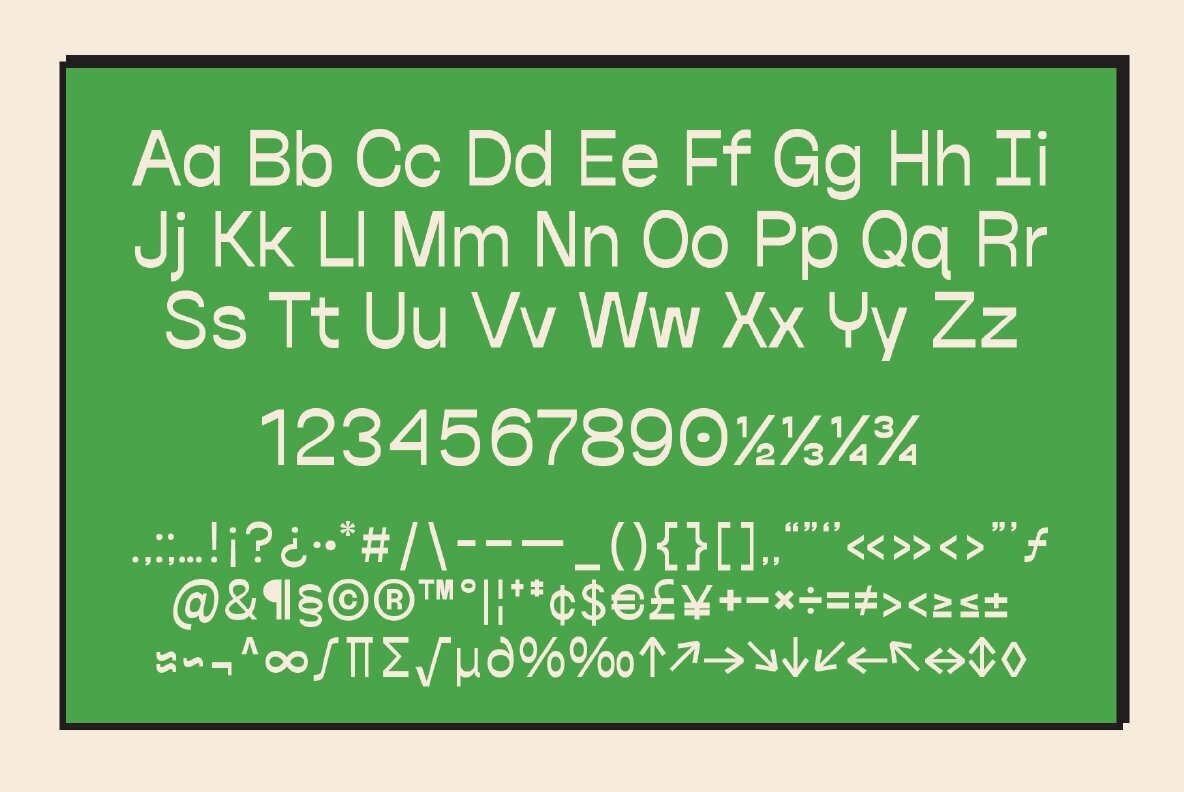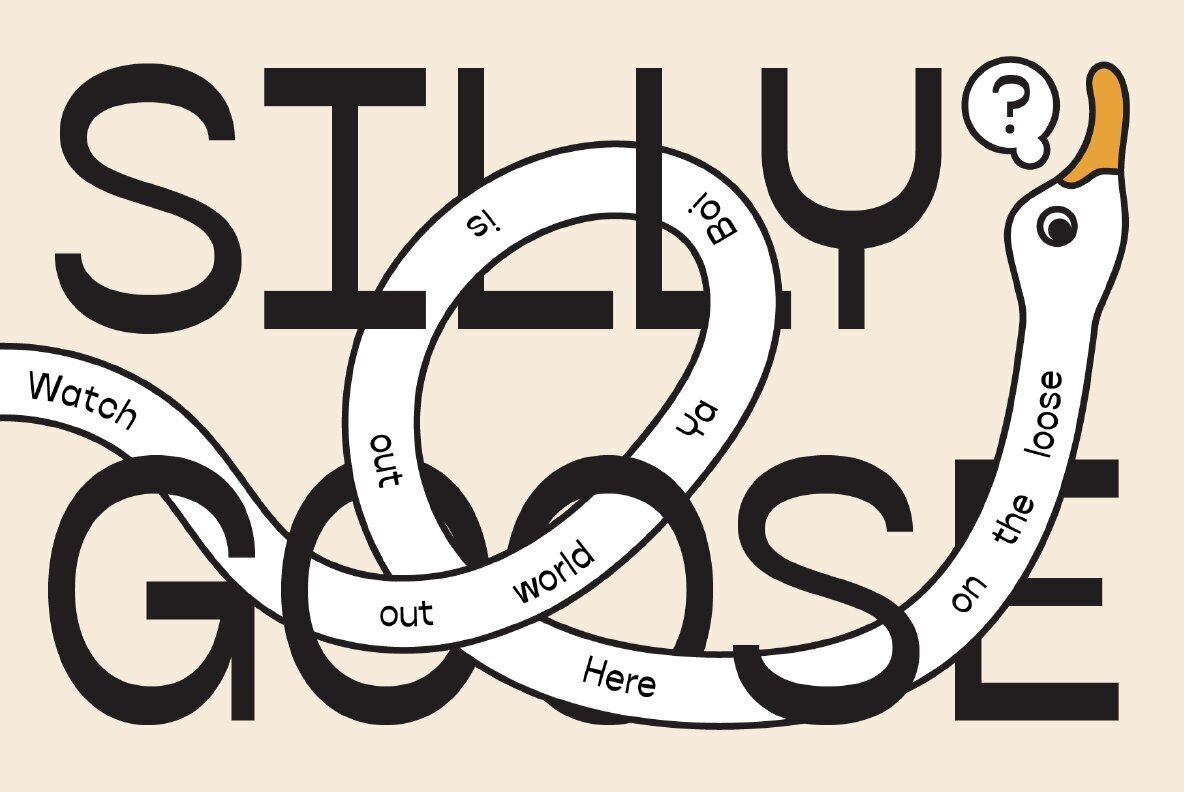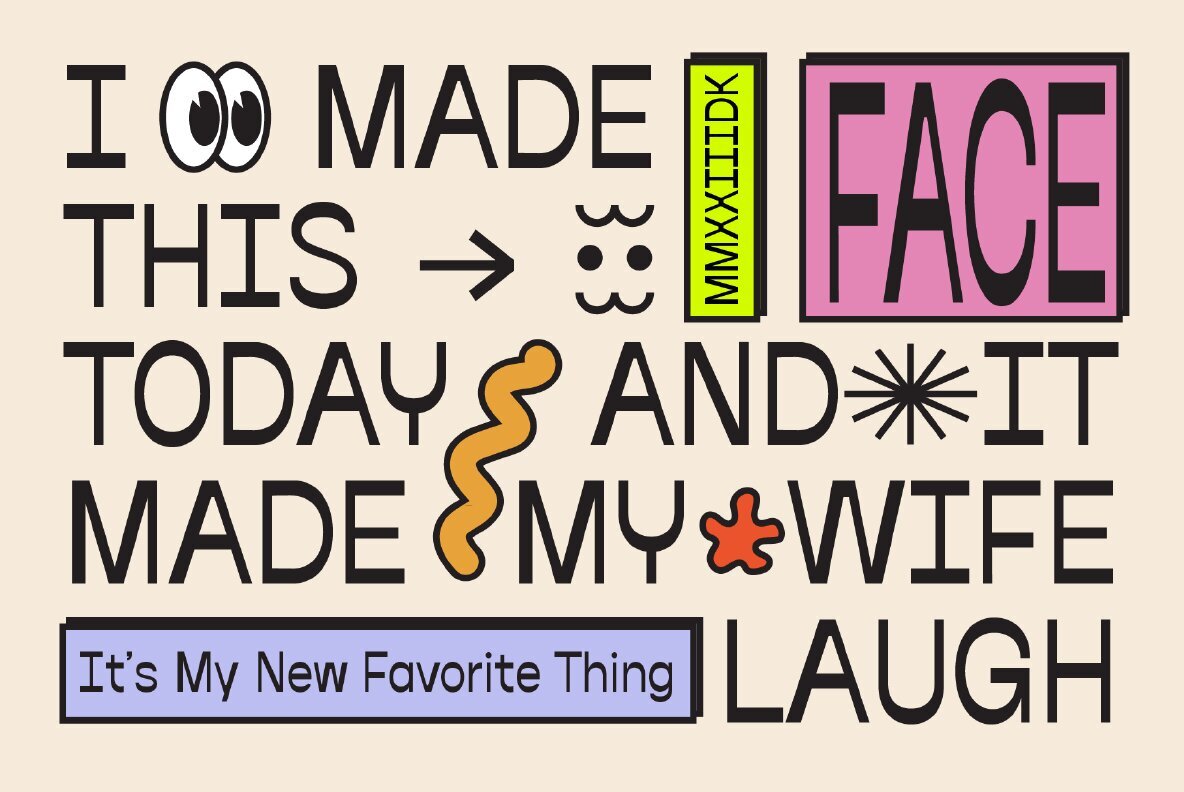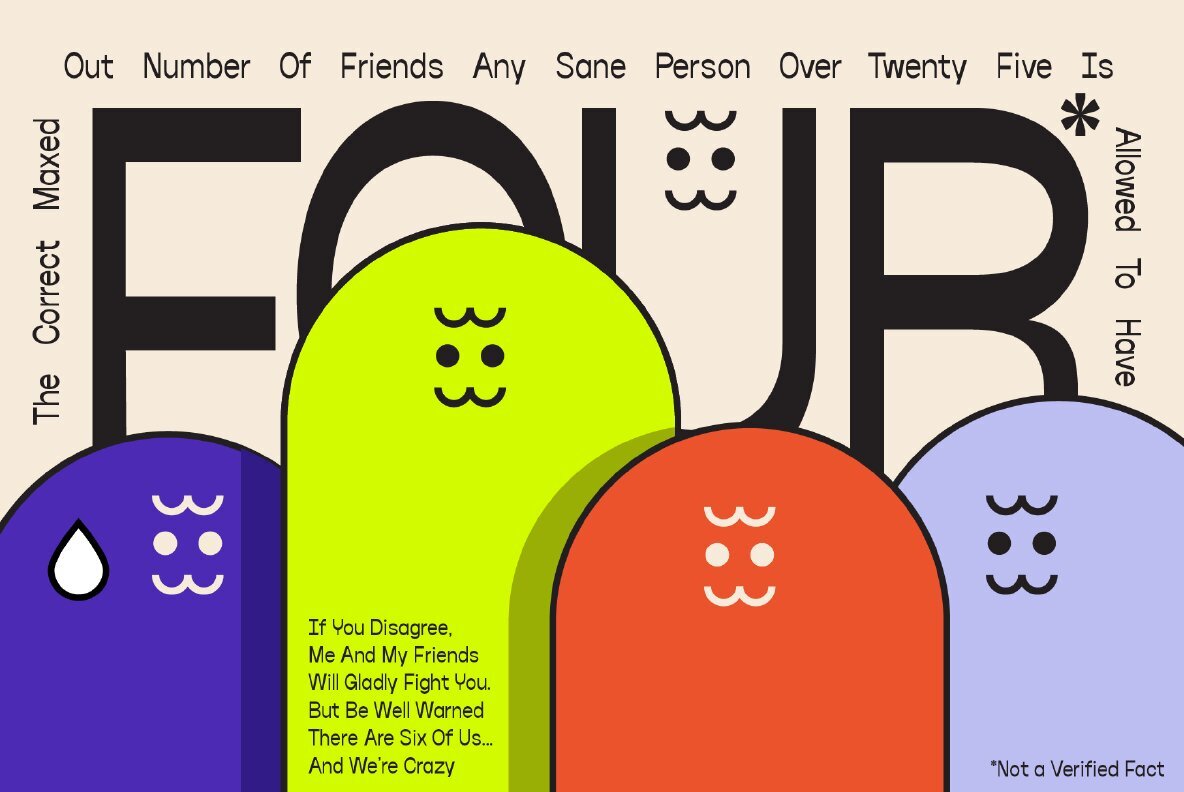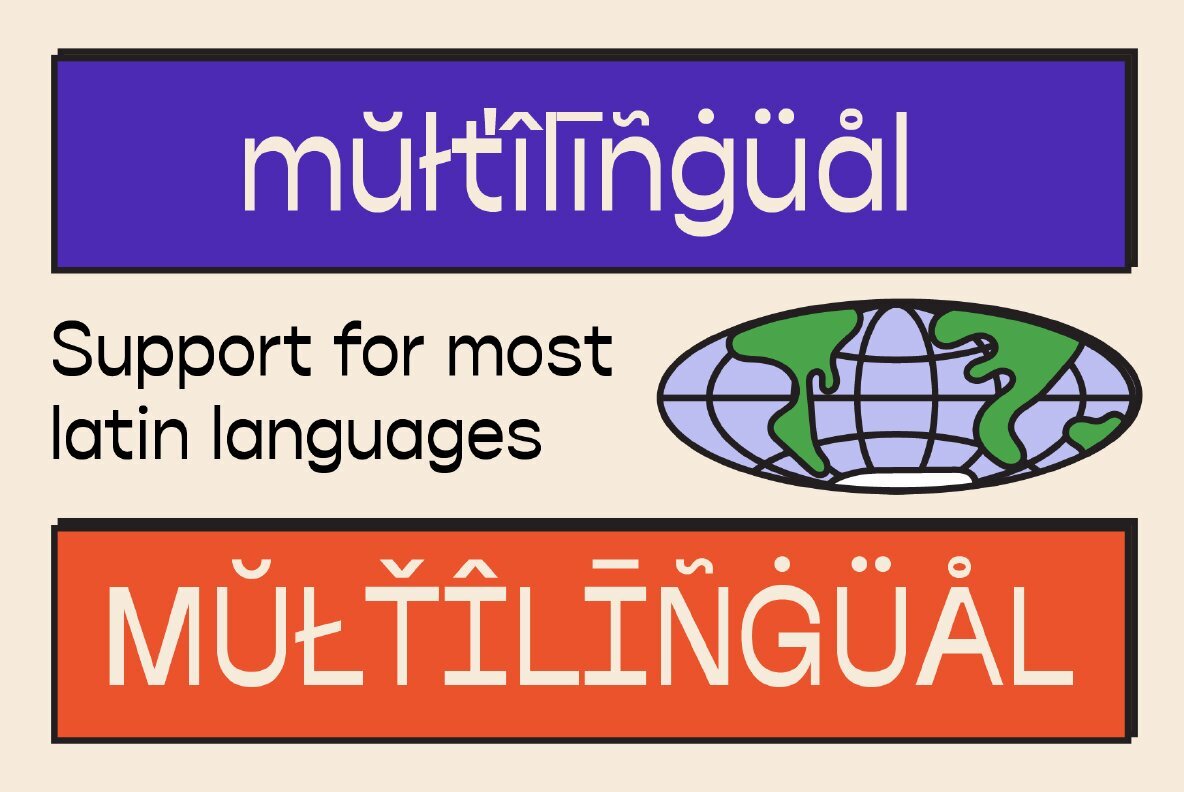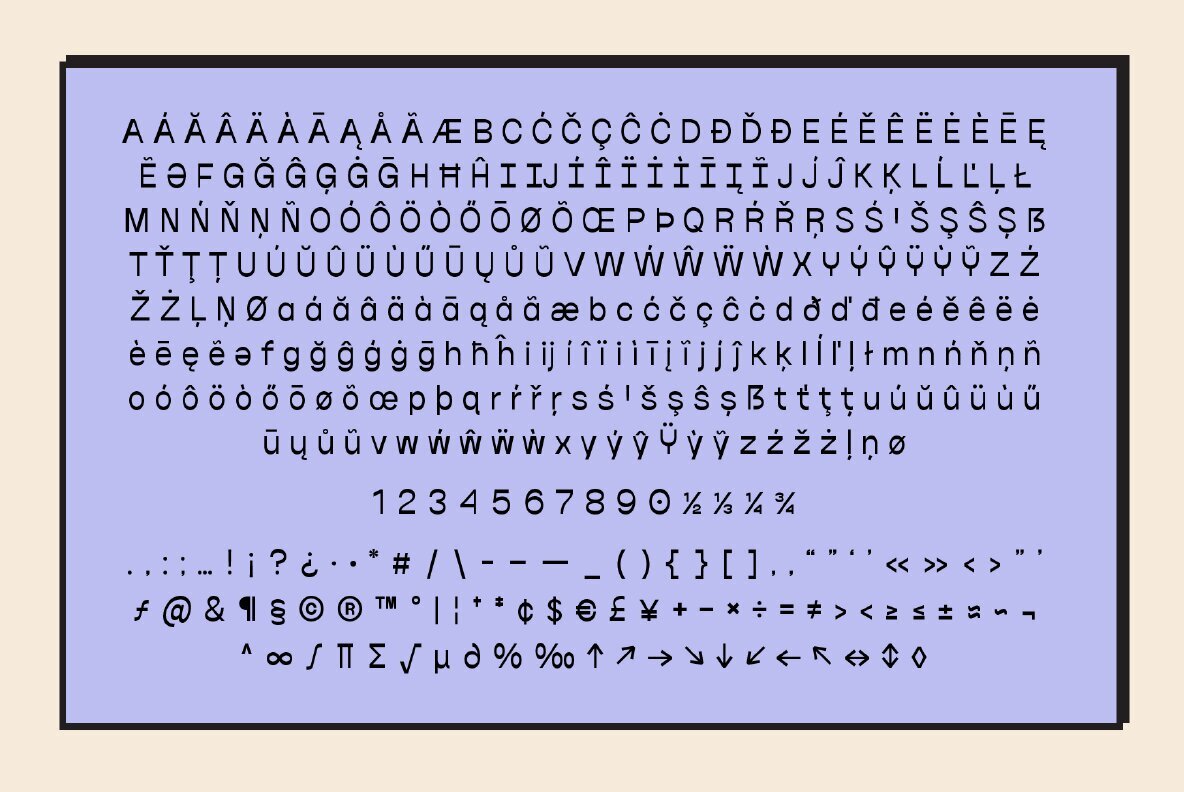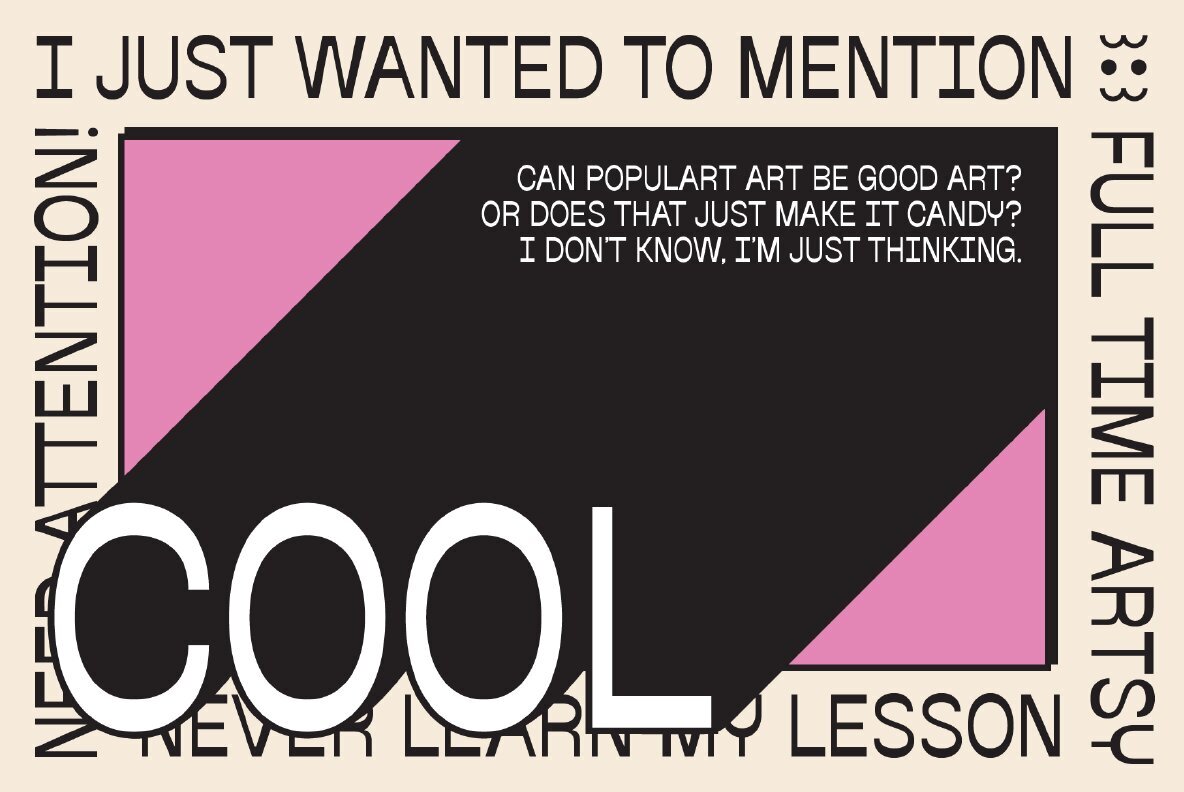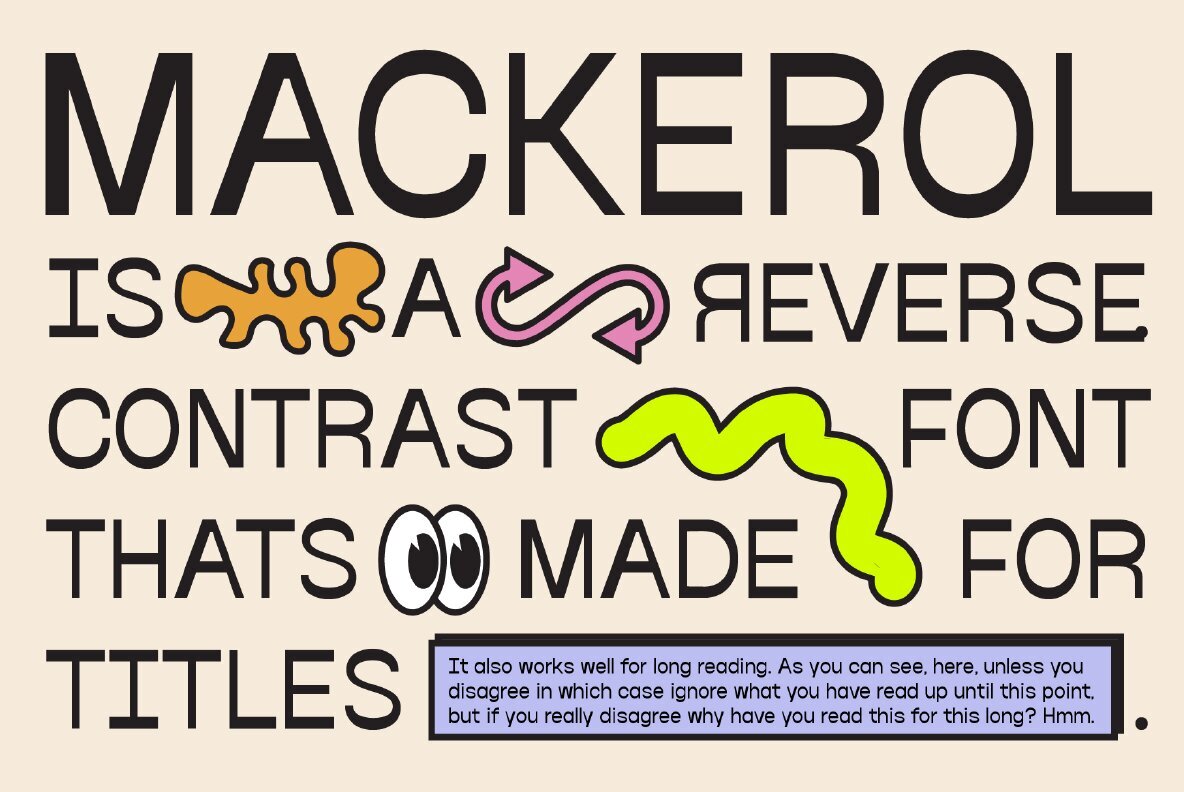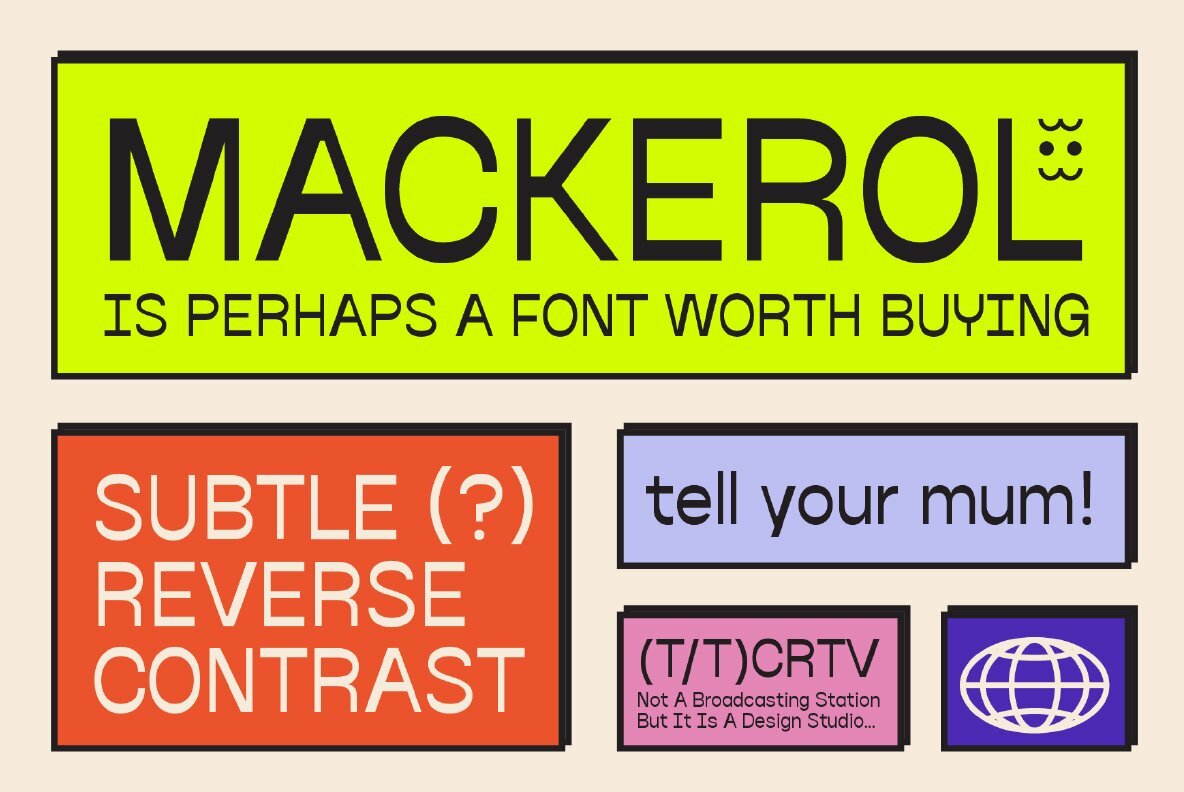
Mackerol Font
Mackerol is a reverse contrast font that is built for titles, display, headlines, and long text. Mackerel is a modern take on a quirky font style that will add a bit of a playful personality to your design.
If you are working on branding, logos, magazines, instagram, posters or whatever Mackerol is your guy if you are wanting to get that fun cool payed back personality right.
- Caps
- Lower Case
- Numbers
- Symbols
- Multilingual Support